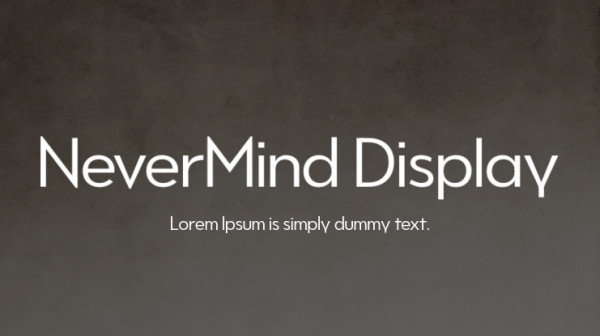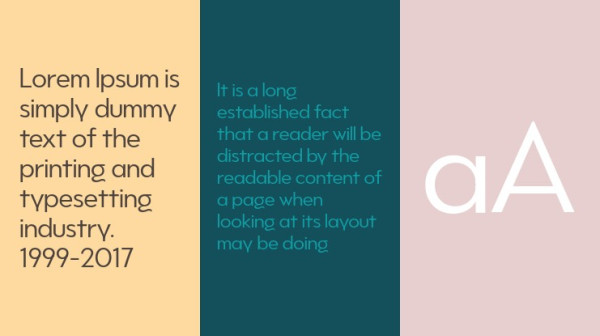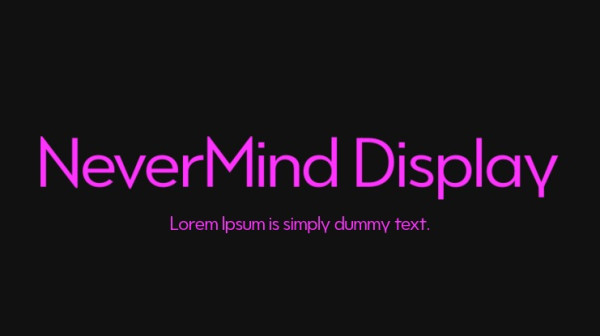
NeverMind Display Font
NeverMind Display Font is a modern sans-serif font family from XMind Ltd that seamlessly merges impactful look with contemporary edge. Modern and powerful, it can be used for all types of communication.
Nevermind Display is a part of Nevermind font family that currently includes one basic typeface and more than ten different fonts in various styles, including round, handwritten, serif and so on.